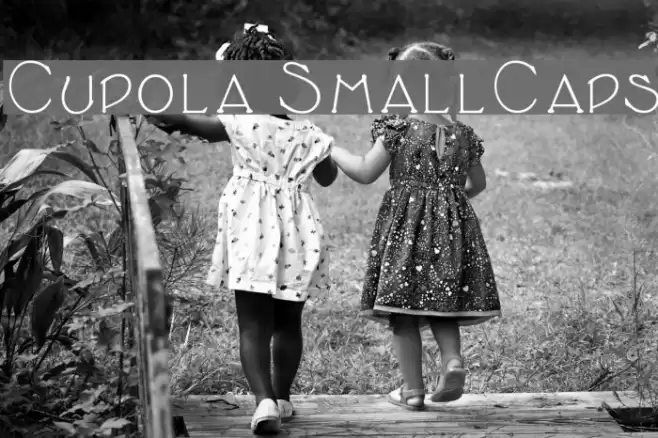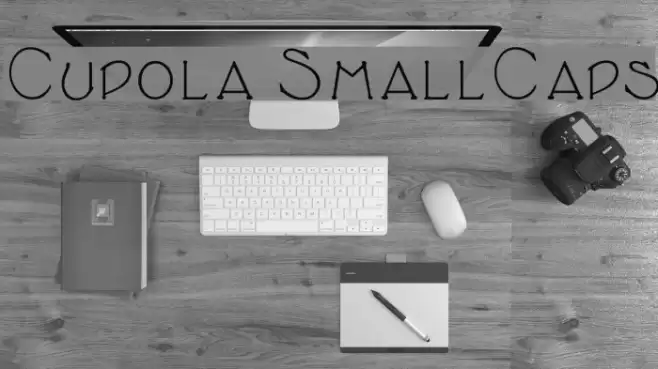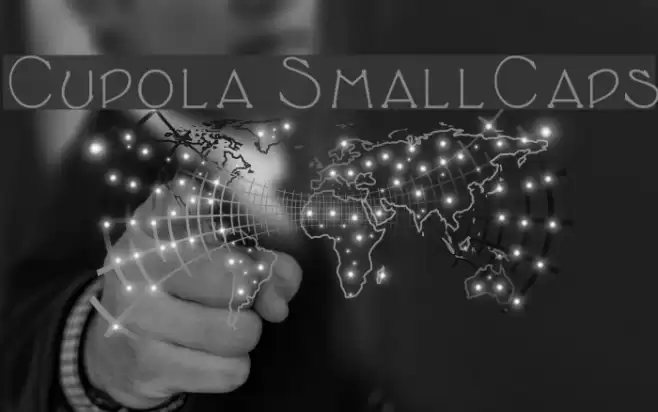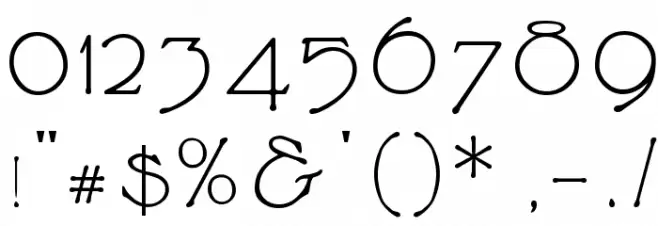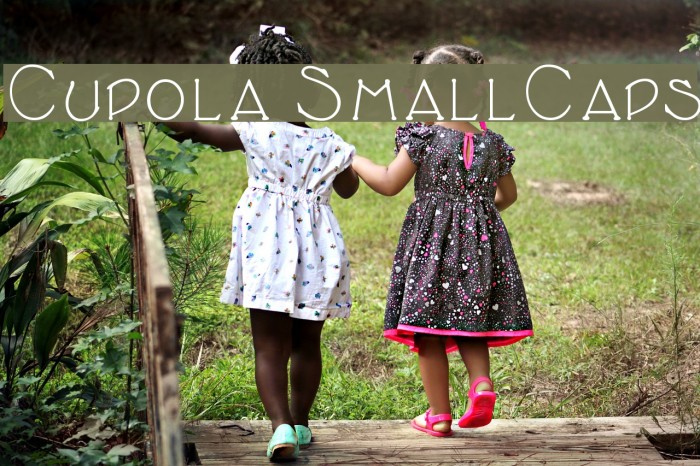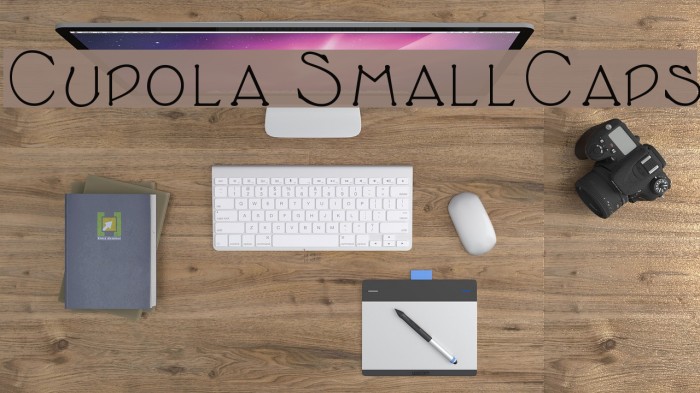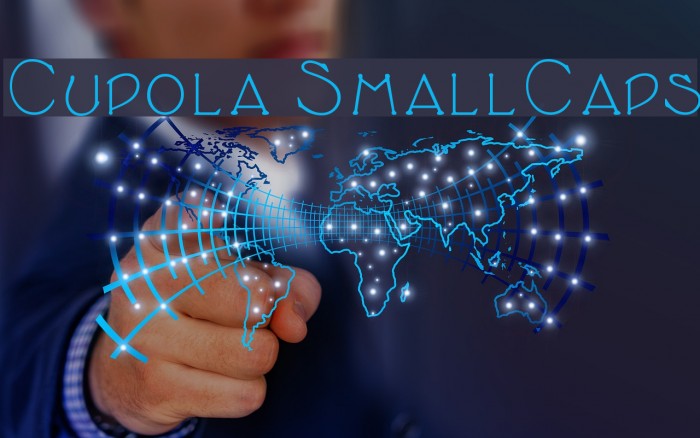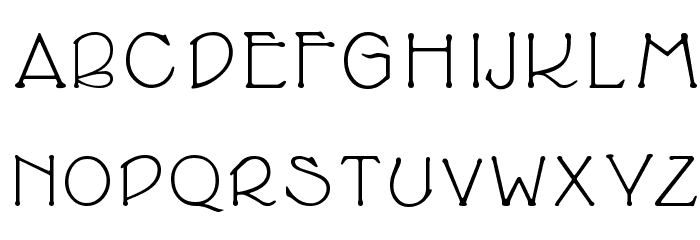
Cupola SmallCaps Font
Cupola SmallCaps Description
This font features a unique blend of elegance and simplicity, characterized by its clean, flowing lines and distinct small caps style. The uppercase letters are designed with a slight curvature, giving them a sophisticated yet approachable appearance. The numerals and special characters maintain this cohesive style, ensuring consistency across all text. The font's design is both modern and timeless, making it versatile for various applications. Its readability is enhanced by the balanced spacing between characters, which is neither too tight nor too wide, allowing for clear legibility in both print and digital formats.
A modern, elegant font with clean lines and a small caps style from Handwritten fonts.
- Proposed Projects: Ideal for branding, invitations, editorial design, and digital media.
- Use Case: Logos, Headlines, Invitations